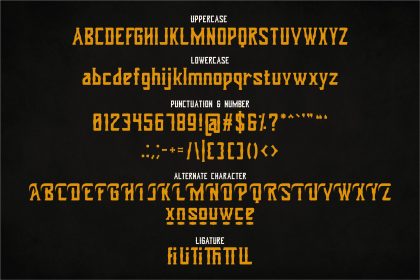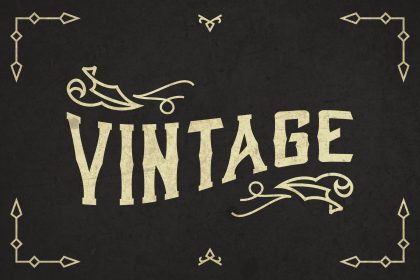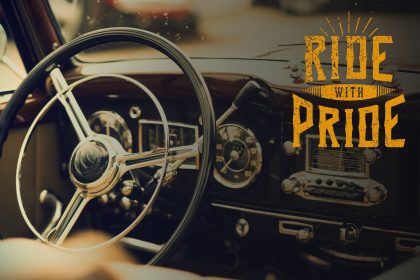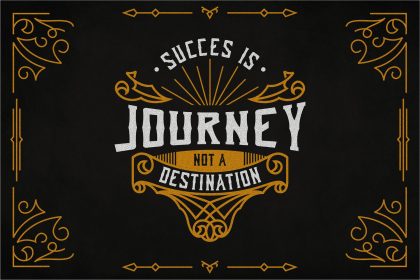
Dohong Kaliba Vintage Font
\”Dohong Kaliba\” is a font display is made by hand, inspired by classic posters.
comes with uppercase, lowercase, numerals, punctuations and so many variations on each characters include opentype alternates, common ligatures and also additional swash to let you customise your designs. Perfect to use for Logotype, Letterhead, Poster, Apparel Design, Label and etc.